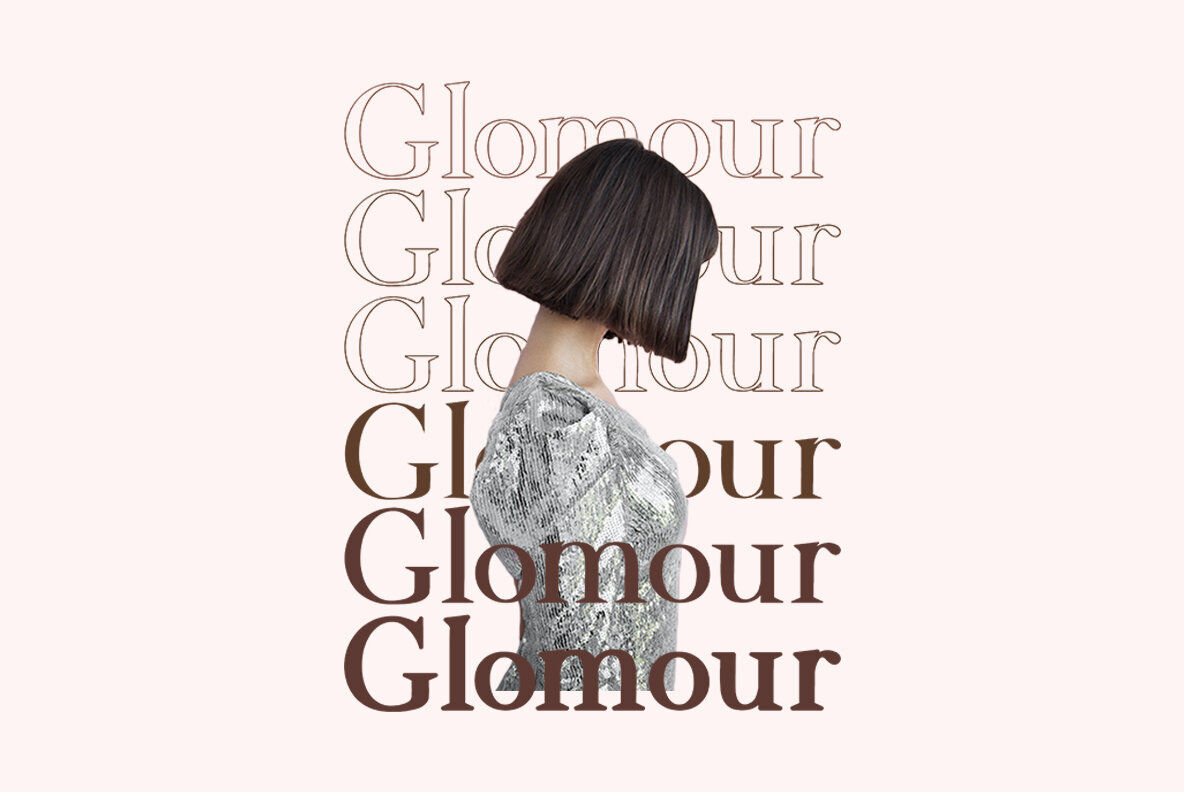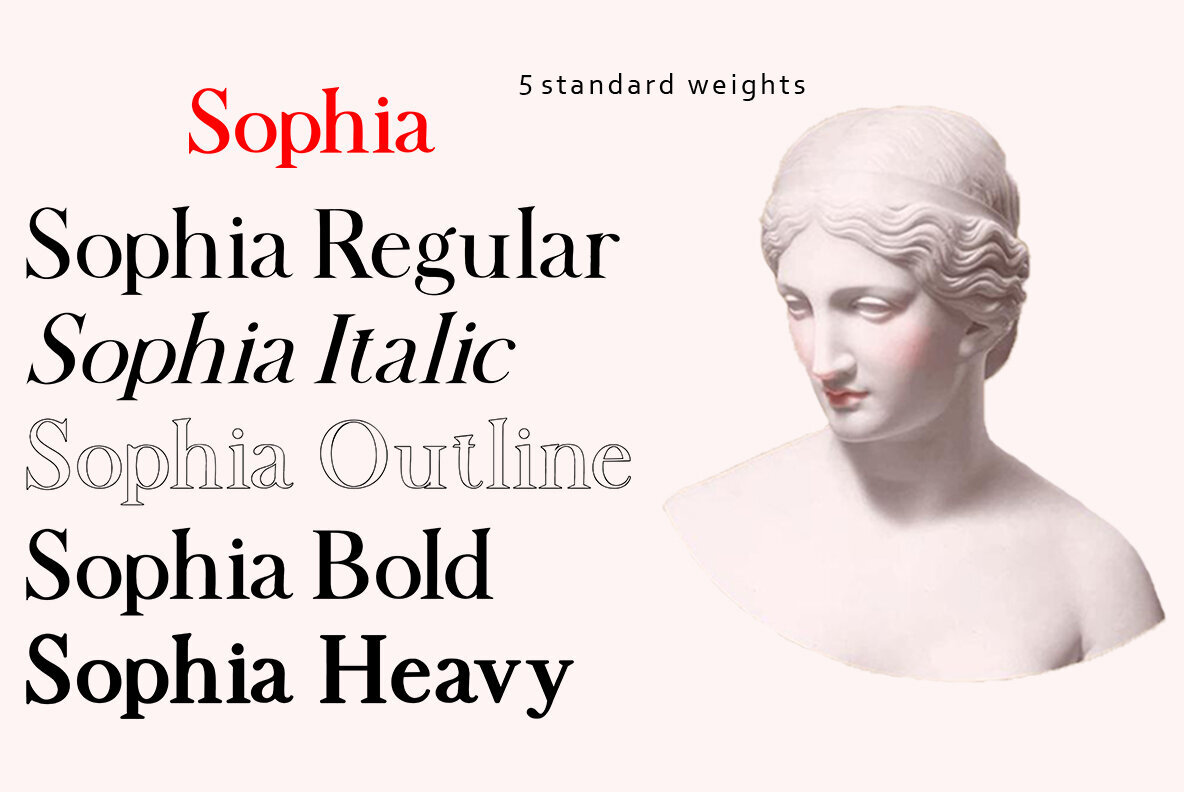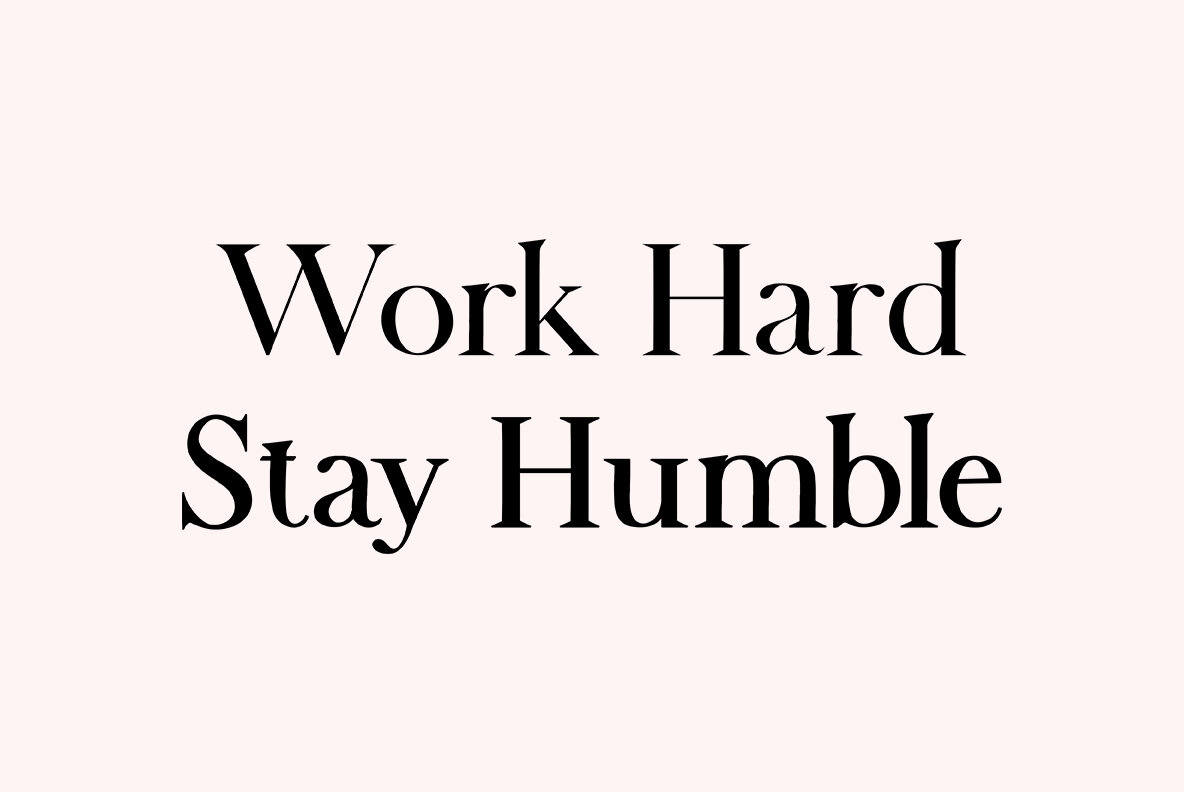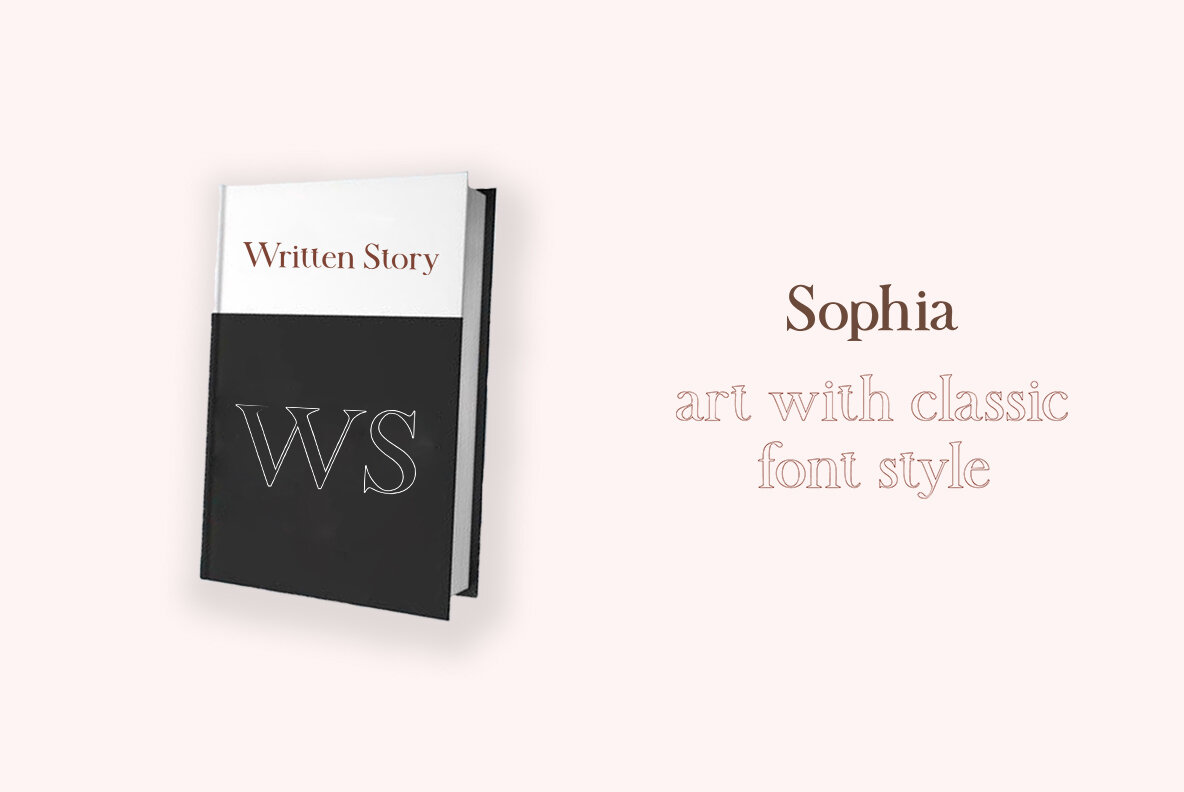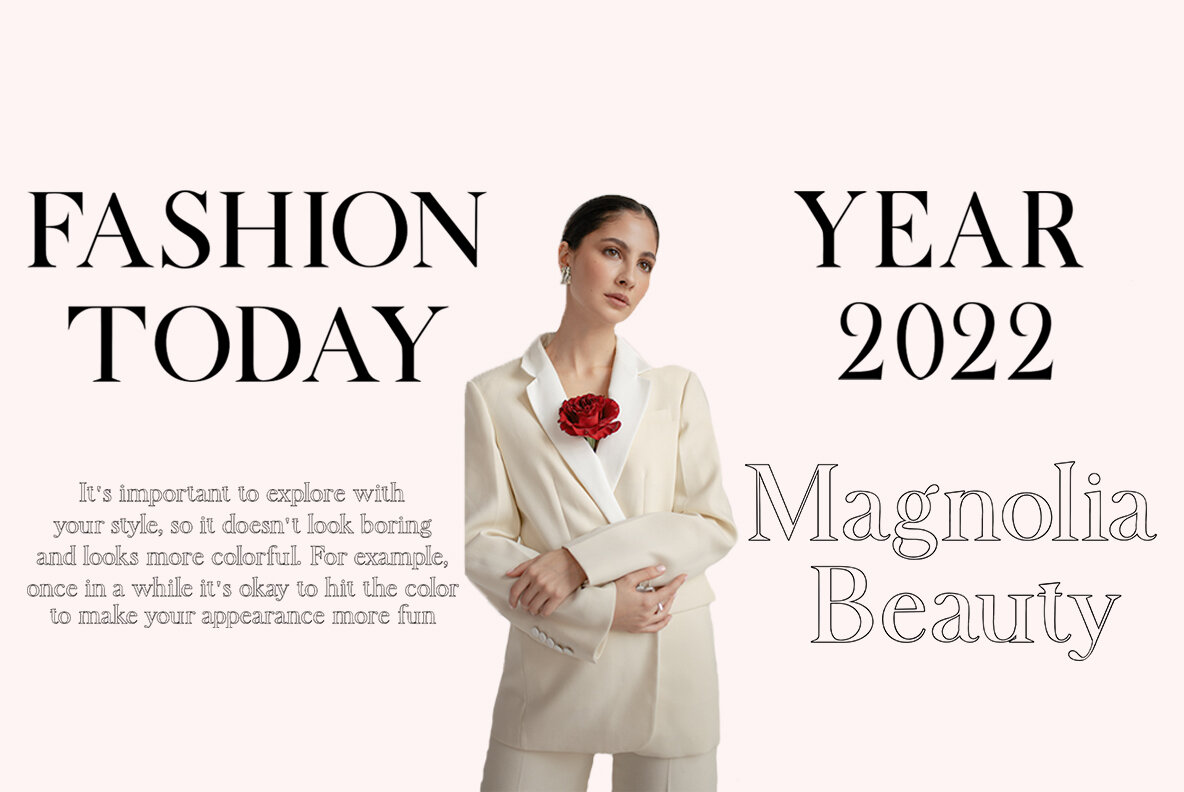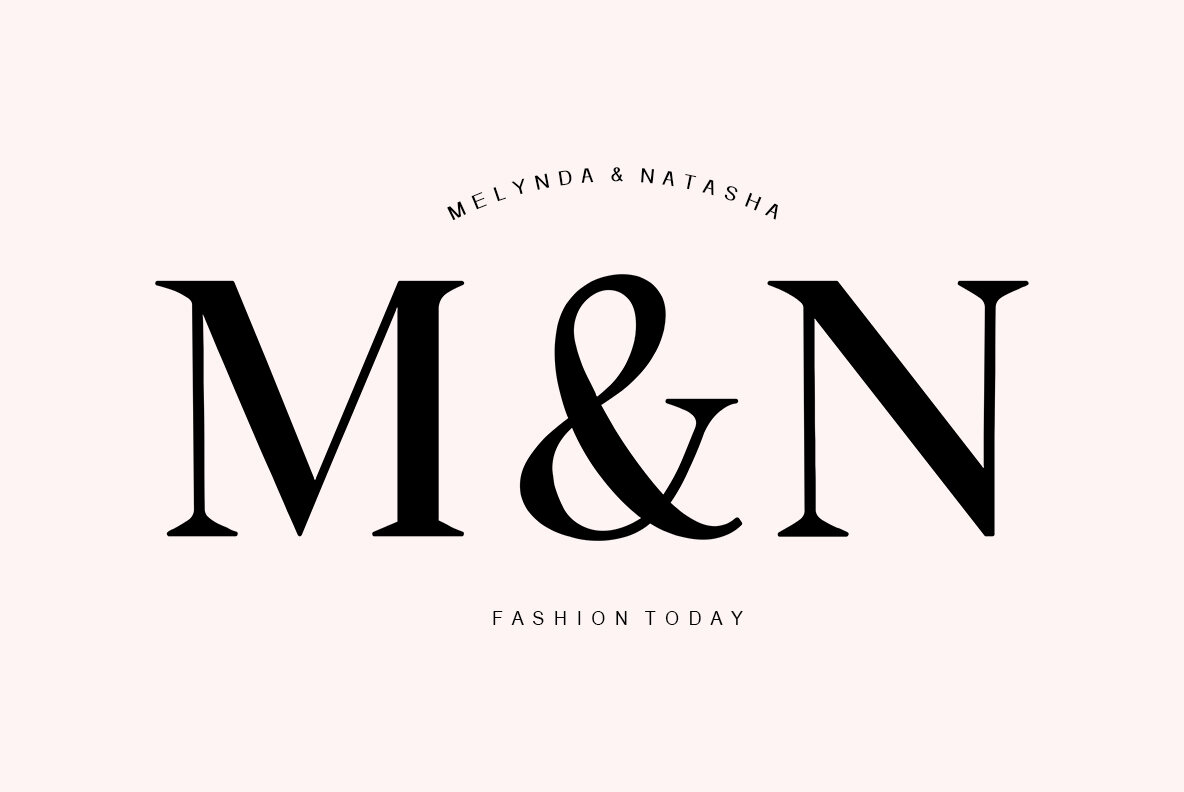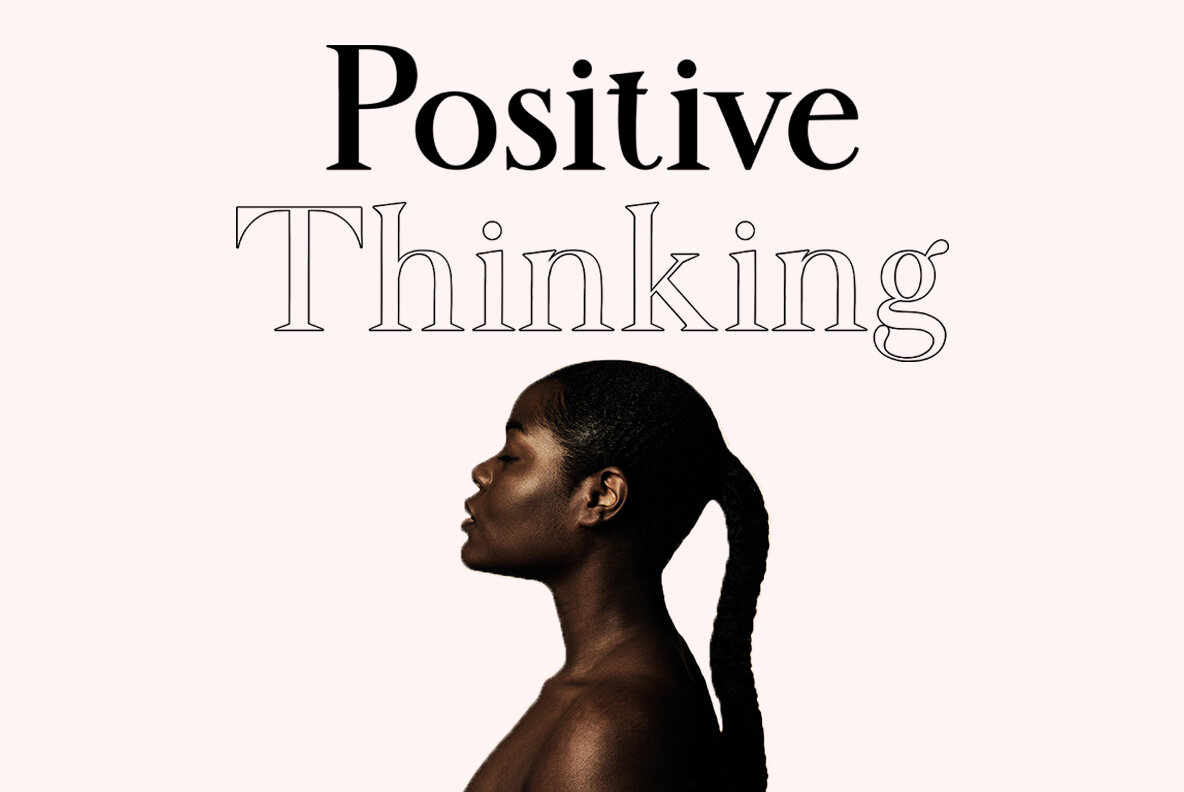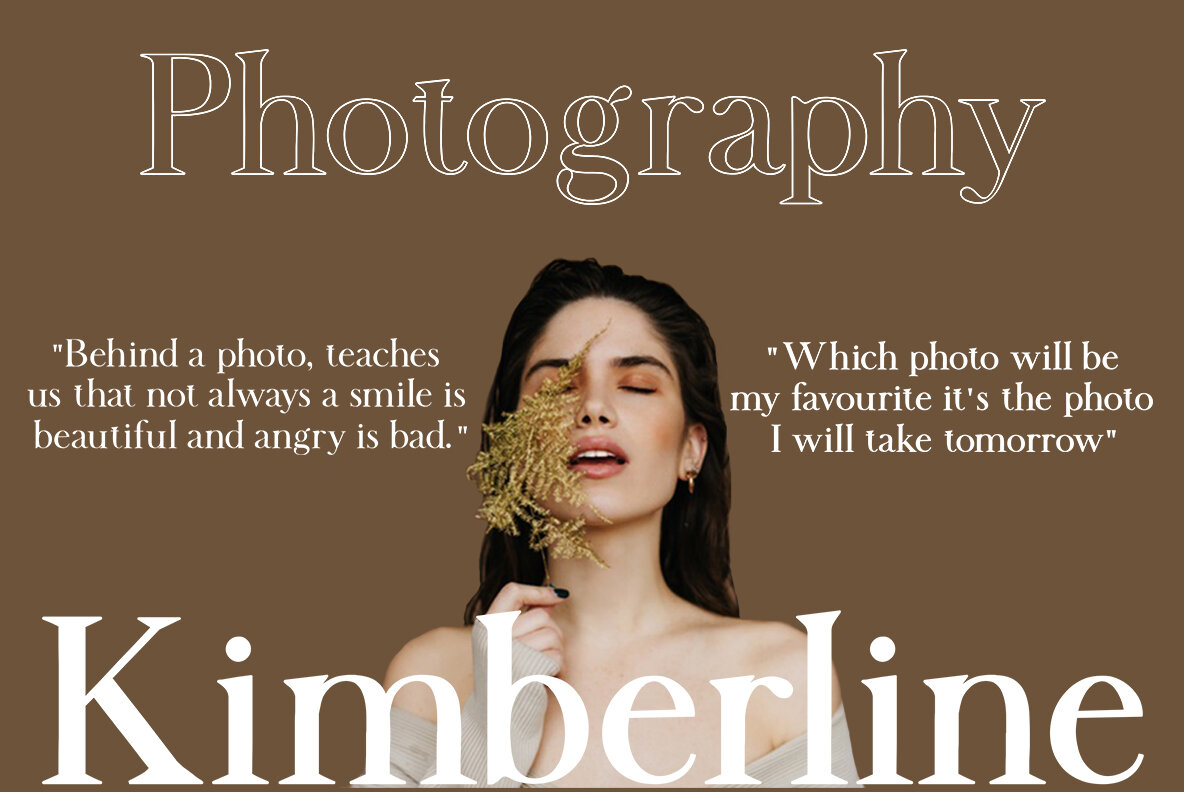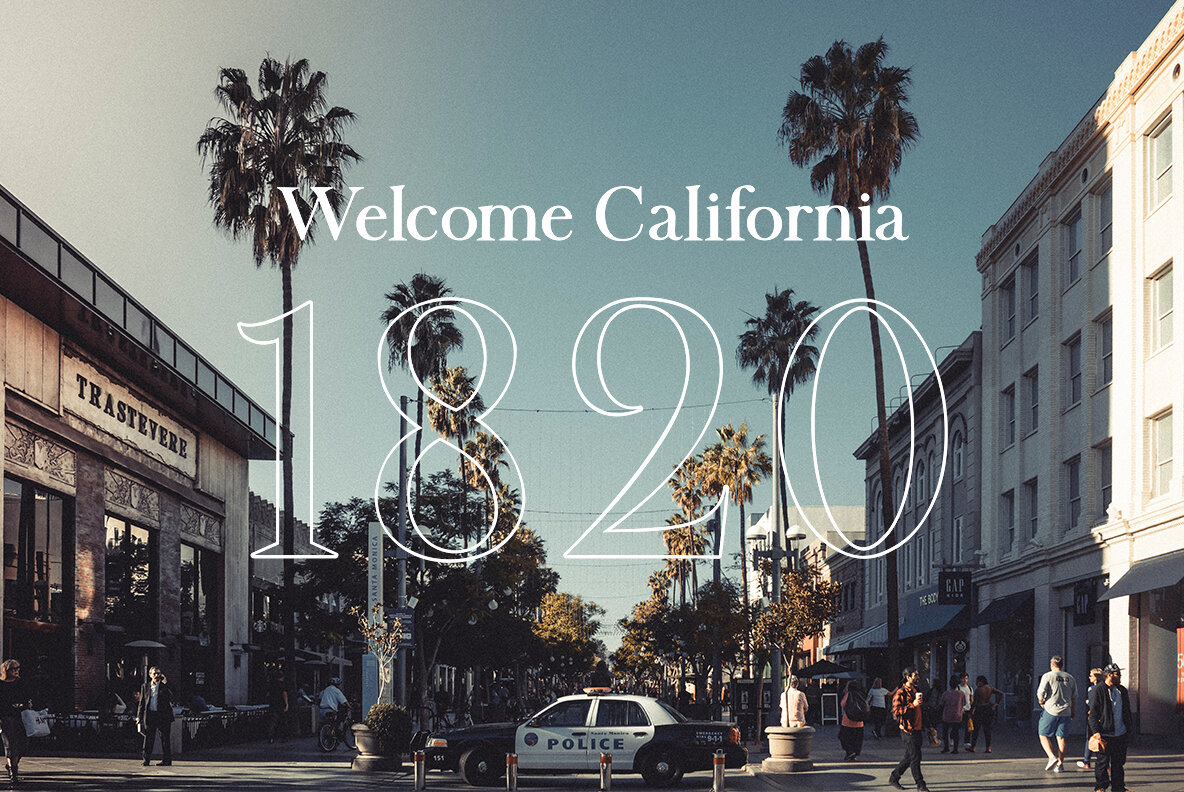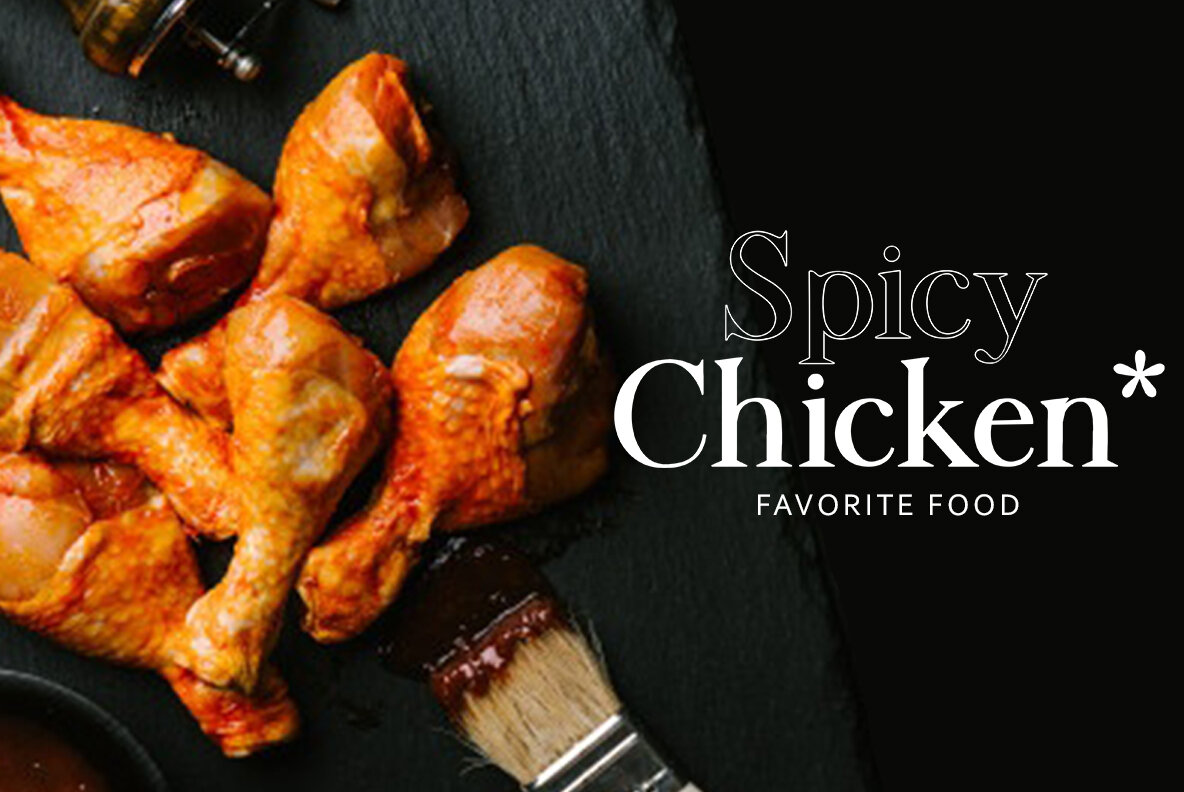
Sophia Font
Sophia is a display font that strikes the perfect balance between classic and modern, combining serif and sans serif styles in a unique way. Its timeless appeal makes Sophia a great choice for stylish and impactful designs. The font family includes 5 different weights, uppercase, lowercase, punctuation, and multilingual support.